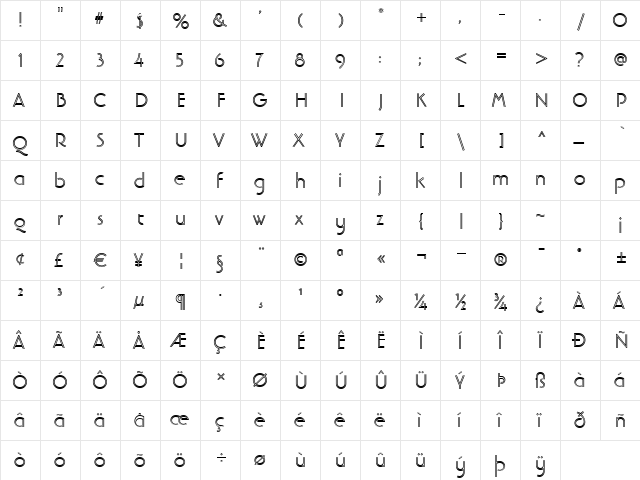
Banjoman Open Regular
Design Context for Banjoman Open Typeface
Banjoman Open is a composed and adaptable typeface that performs quietly and consistently across a wide range of design contexts.